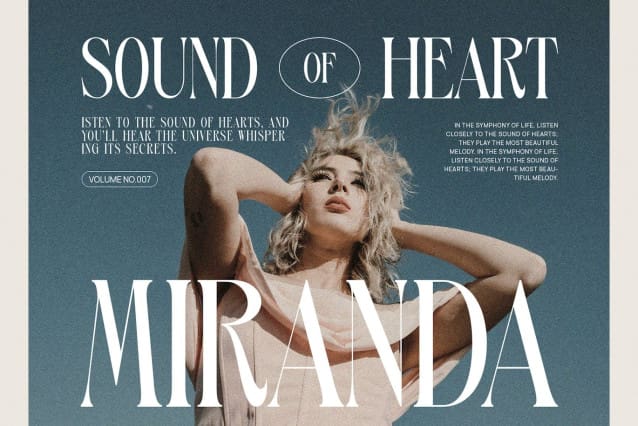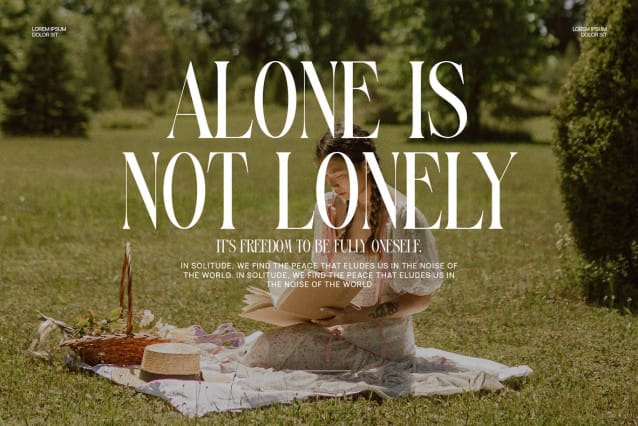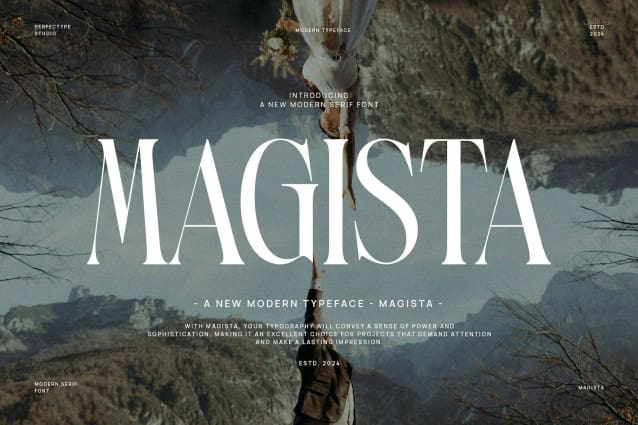
Magista Typeface
Magista Typeface, this is a very elegant and classy font for all branding and logo designs. This type of Serif font is made with elegance and luxury, so it is perfect for all your design uses. This font type is perfect for your various needs like branding projects, logos, social media posts, advertisements, labels, product packaging, photography, wedding designs, watermarks, invitation product designs, stationery and any project created with a high standard readability.